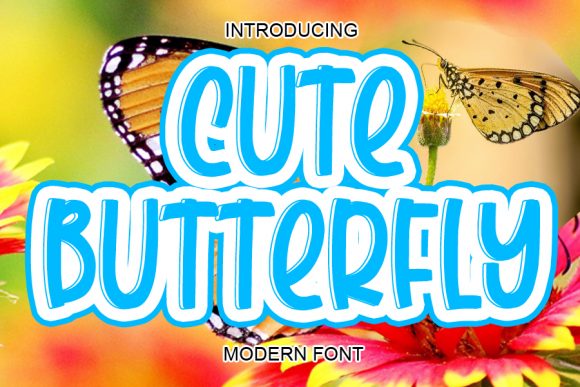
In a world of monotonous fonts, let your designs flutter with the charm of the Cute Butterfly font. Crafted by the renowned ABBAsalam, this display font dances with joy and authenticity, ready to transform your creations into a symphony of colors.
With its playful, chunky letters, Cute Butterfly is the perfect font for adding a touch of whimsy and vibrancy to any school project or children's activity. Its playful strokes evoke the innocence and imagination of childhood, inviting young minds to explore the world of words.
Unleash your creativity and watch as Cute Butterfly brings your designs to life. Its bold, eye-catching presence demands attention, making it an ideal choice for business cards that leave a lasting impression. Its unique style ensures that your cards stand out from the crowd, attracting potential clients and partners with its playful charm.
Join the ranks of those who have discovered the magic of Cute Butterfly. Let its colorful characters dance across your designs, captivating audiences with its playful, unforgettable style. Embrace the power of Cute Butterfly and witness the transformation of your creative vision into a captivating masterpiece.